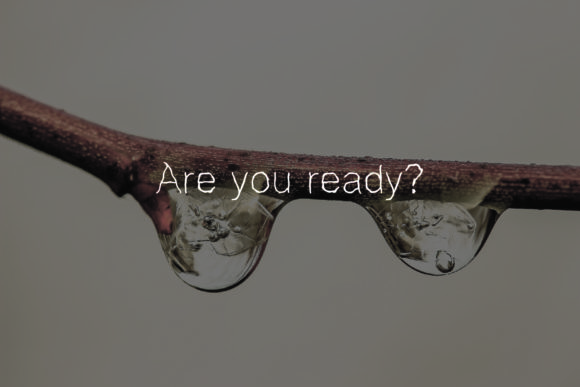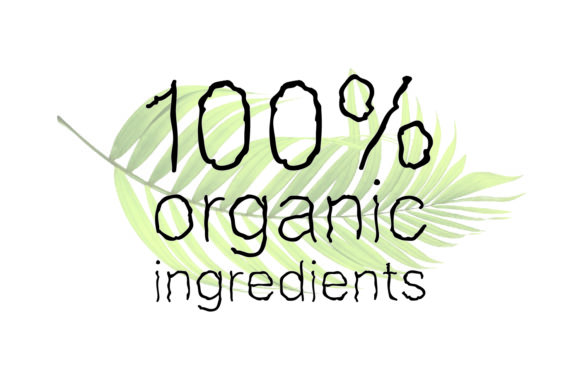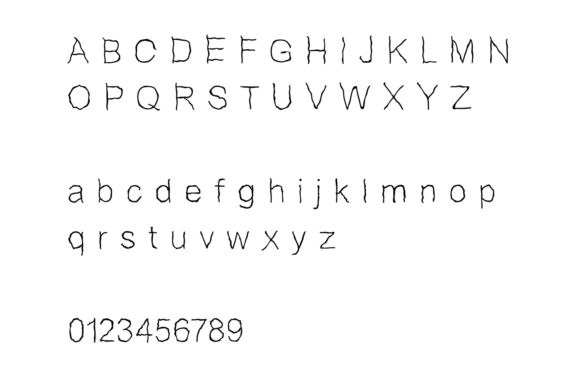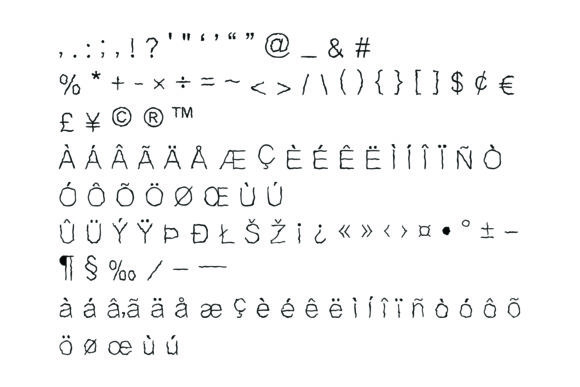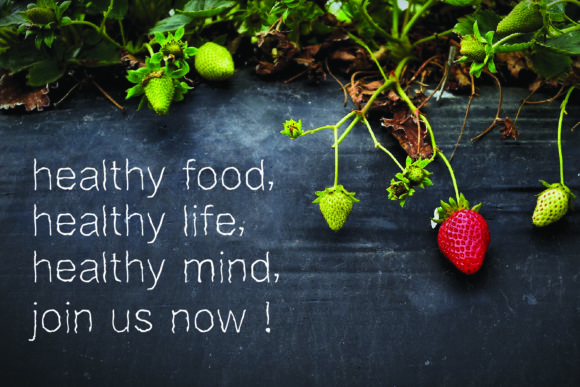
Introduction to Ranting Font
Ranting is a spectacular display font.
This font will look outstanding in any context, whether itโs being used on busy backgrounds or as a standalone headline .